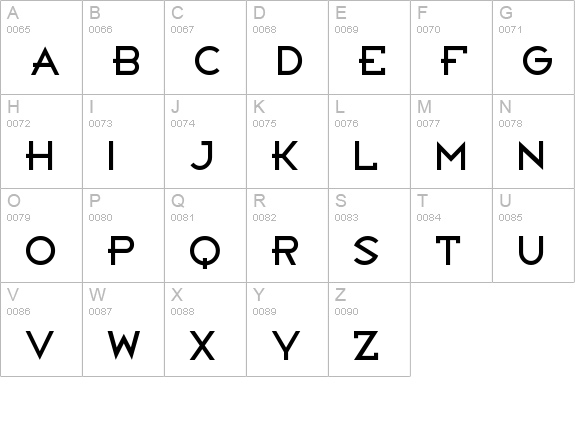
Broadband Regular Font Details
Broadband Regular is the standard, neutral variant in the Broadband typeface family \xE2\x80\x94 well suited to general body text, paragraphs, and standard typographic work.
Broadband Regular font is a versatile and modern typeface that is perfect for a wide range of design projects. Its clean lines and balanced proportions make it highly readable and suitable for both digital and print applications. With a contemporary aesthetic and professional feel, Broadband Regular font is a great choice for branding, advertising, web design, and more. Best of all, this high-quality font is available for free download at FontsMarket.com. Whether you're a designer looking to enhance your creations or a business owner seeking a fresh and engaging font for your marketing materials, Broadband Regular font is a fantastic choice that won't cost you a penny. Download it today and elevate your designs with this stylish and versatile typeface.